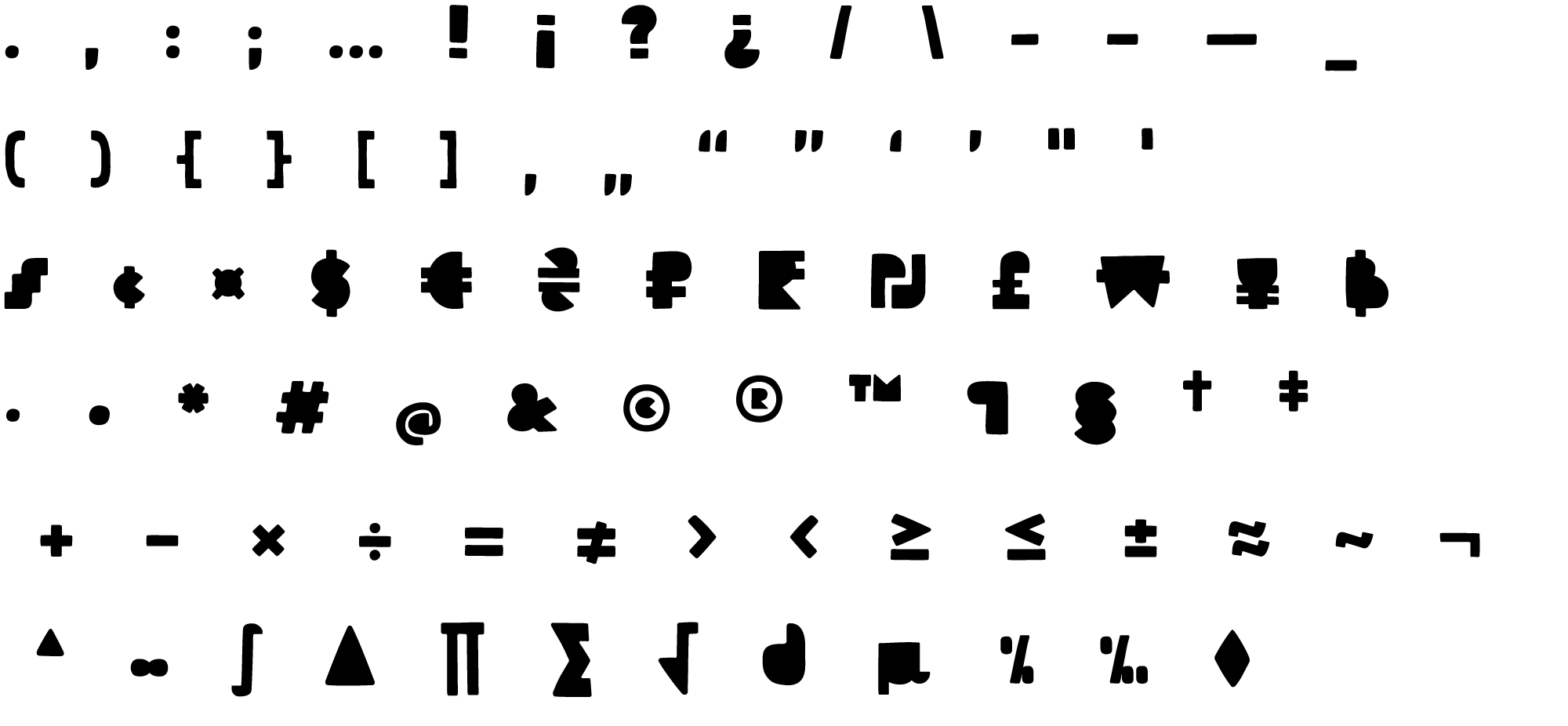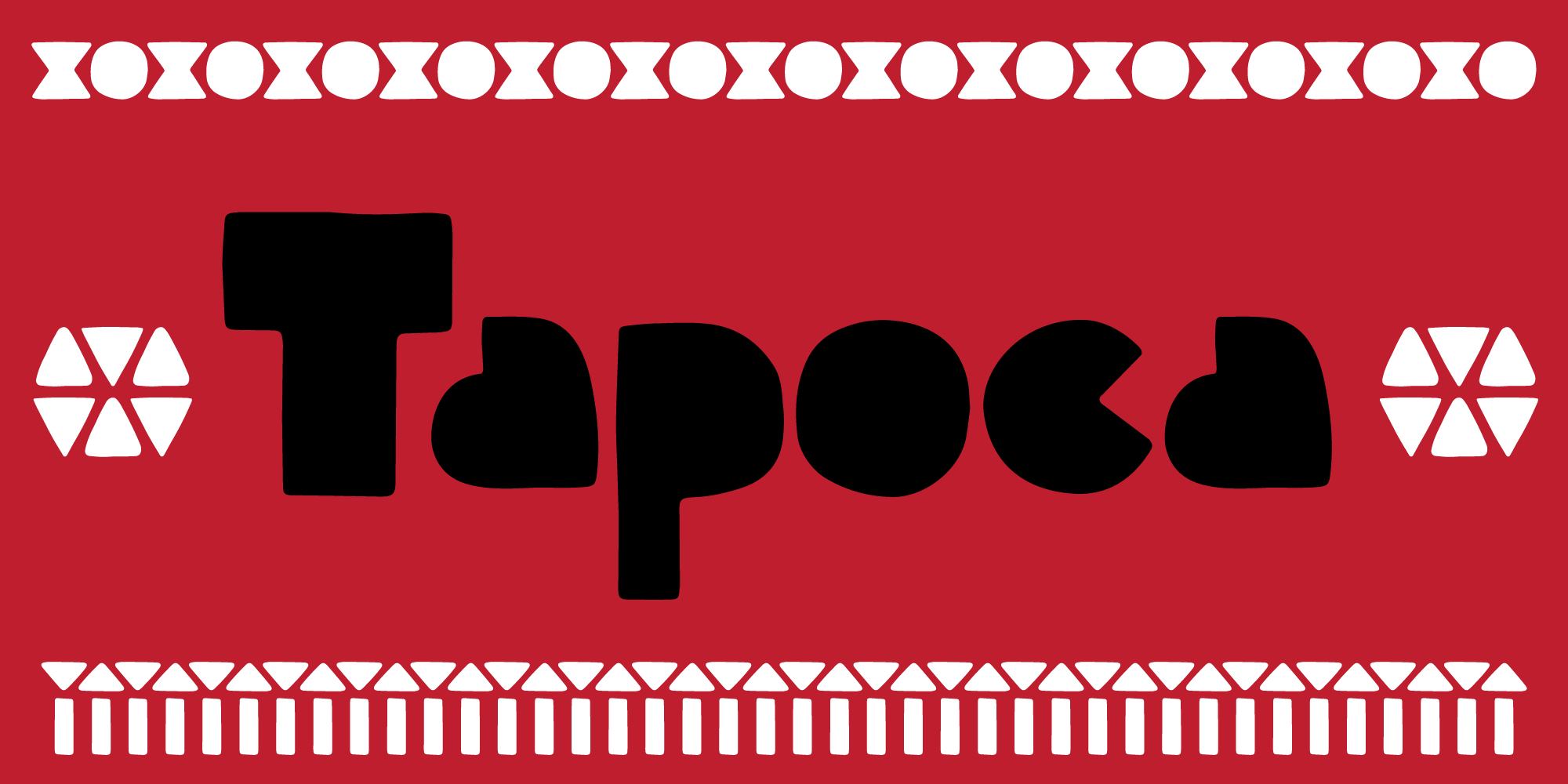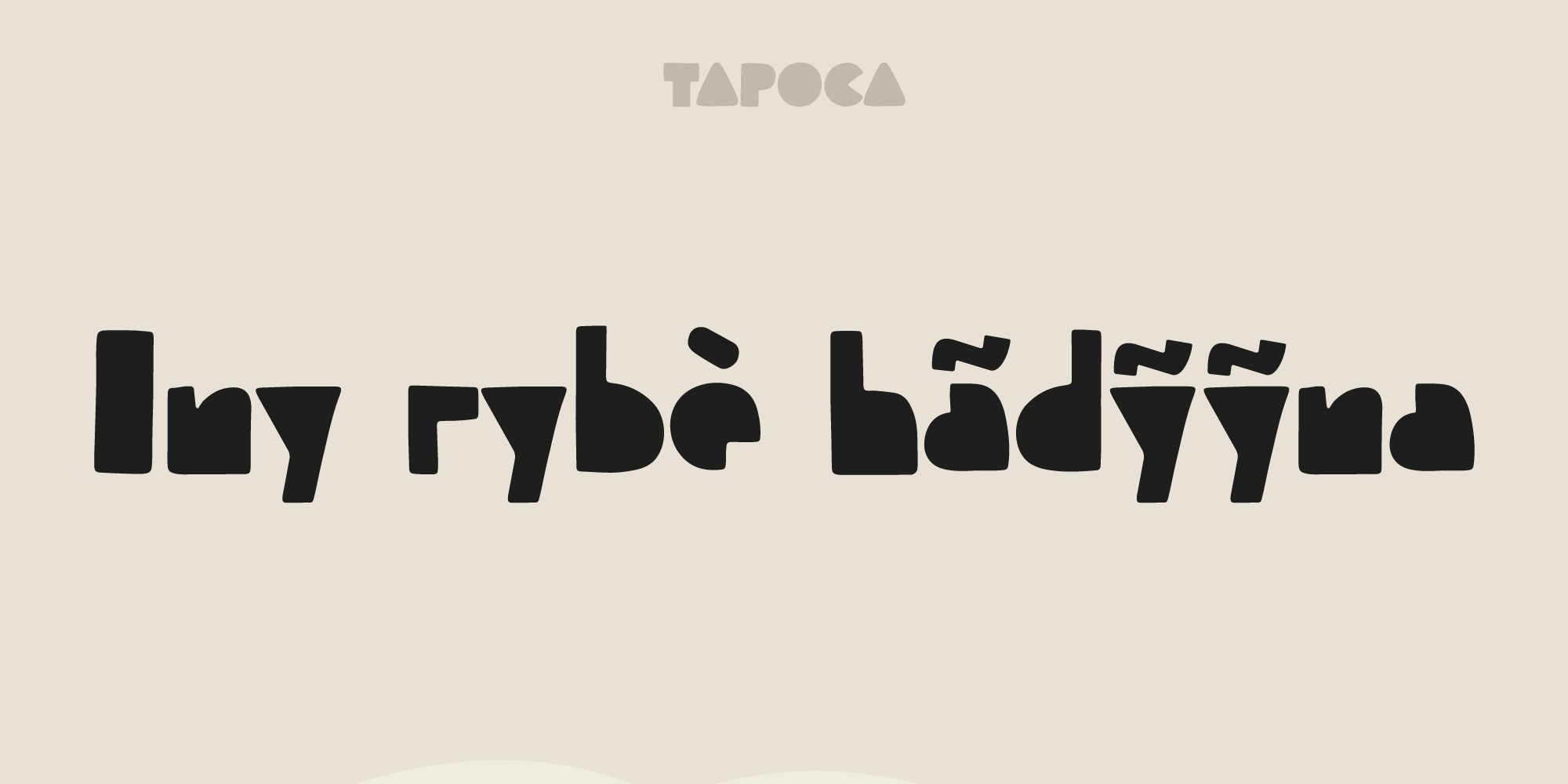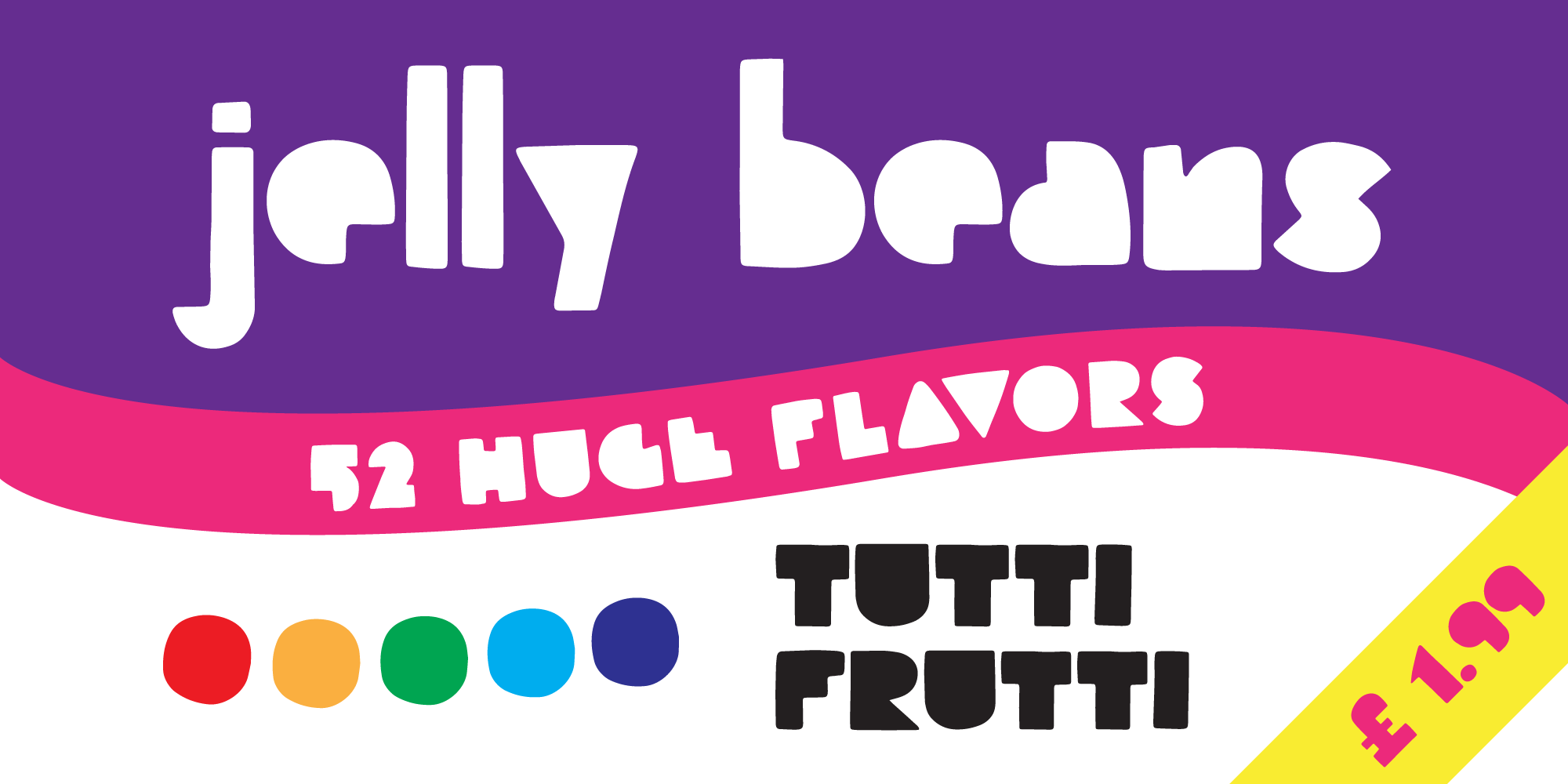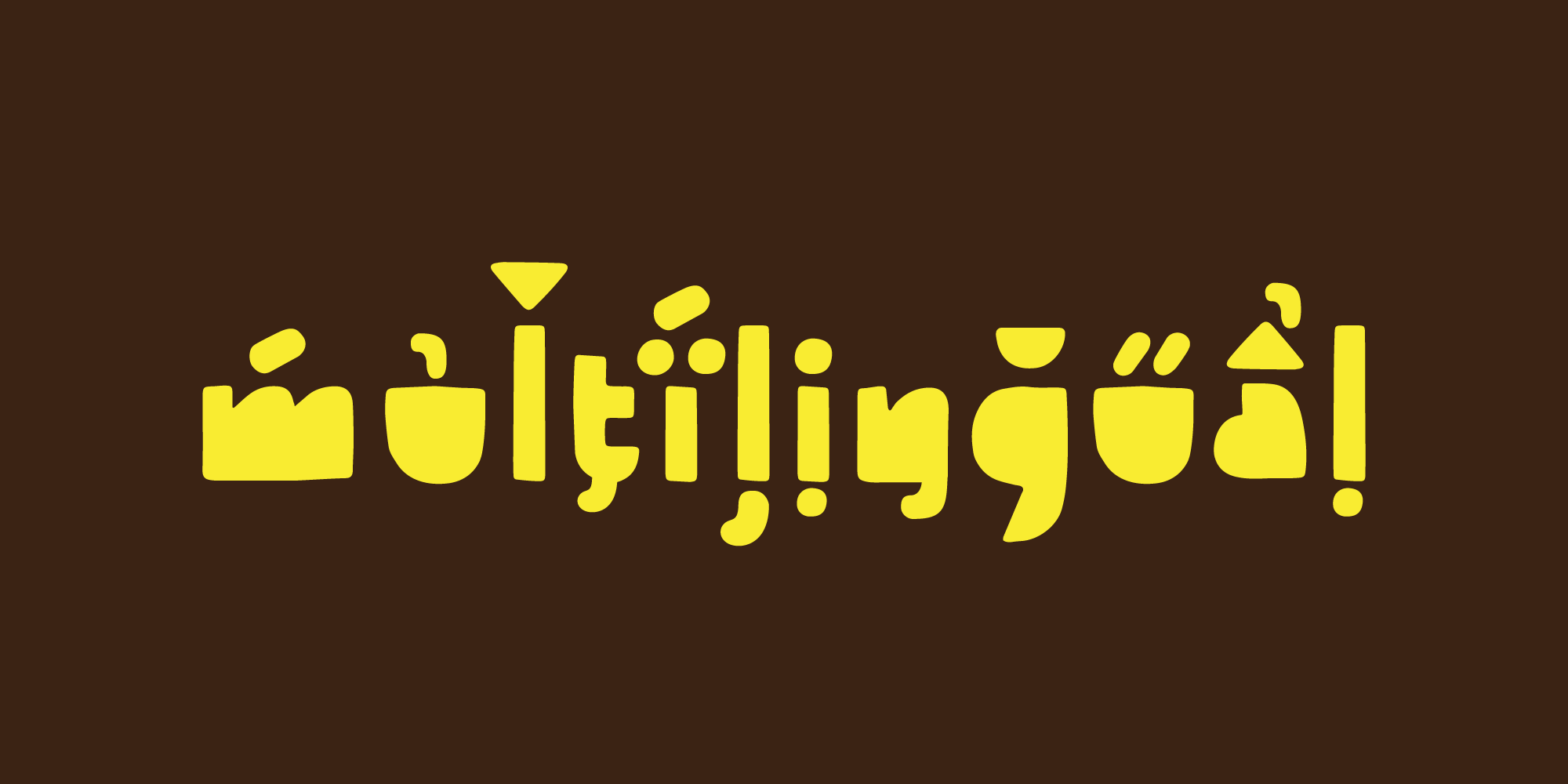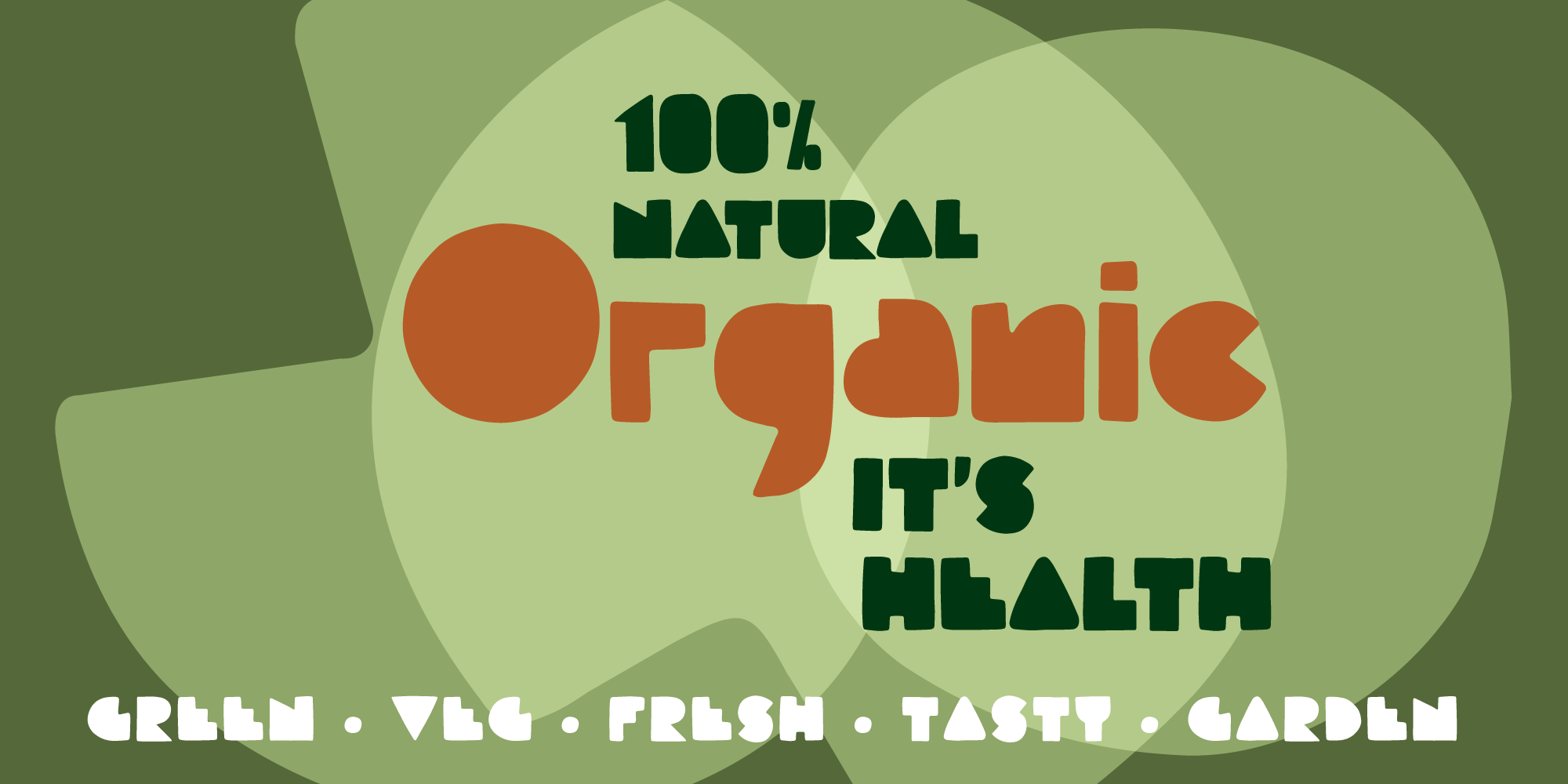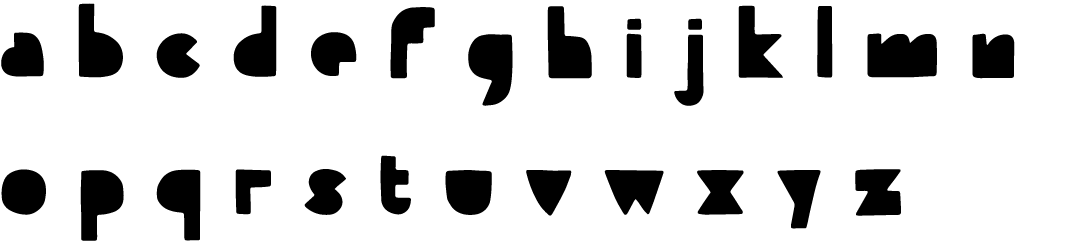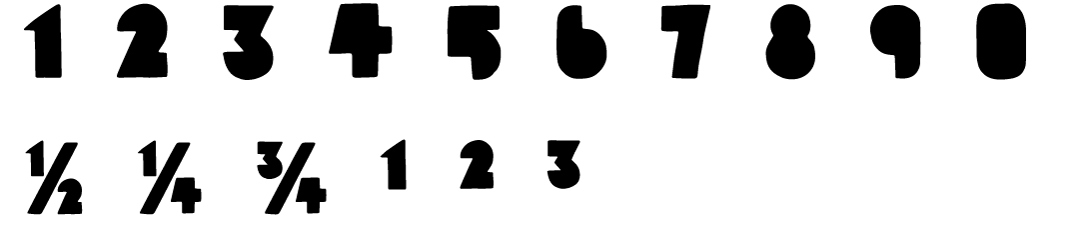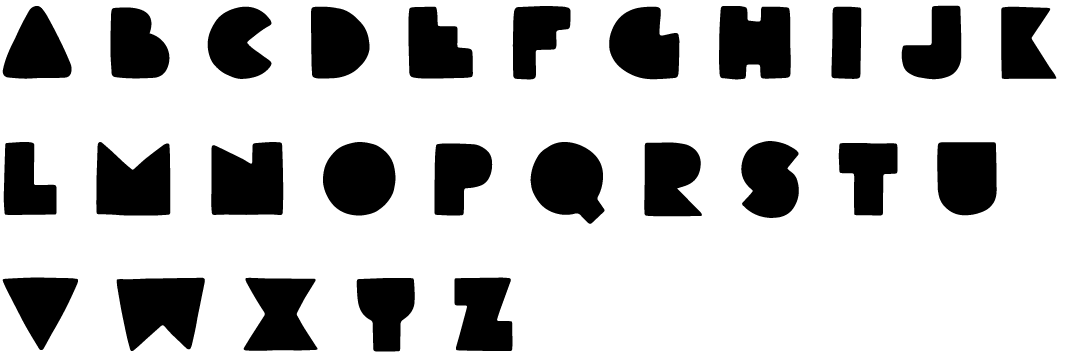
Tapoca is an organic display typeface shaped by the idea of matter transformed into form.
Its name draws from the universe of cassava and tapioca — ancestral knowledge of the Indigenous peoples of Brazil — as a metaphor for surface: a mass that spreads, settles, and gains body. This logic guides the design of the glyphs, marked by full volumes, continuous curves, and a construction distant from rigid industrial patterns.
Tapoca emerges from the intersection of Indigenous graphic traditions, Afro-diasporic visual heritage, and a typographic process attentive to gesture, rhythm, and presence. The letters are dense and expressive, designed to occupy space with personality in headlines, visual identities, and strong typographic hierarchies.
Within the display field, Tapoca is broad and versatile. It works equally well in bold headlines and visual identity systems, adapting to different contexts without losing its character. Its strength lies precisely in this expressive flexibility: a typeface that adapts to the project without becoming generic.
TAPOCA
FORM • GESTURE • PRESENCE
Tapoca is a display typeface designed to occupy space with confidence. While it excels in headlines, its structure also supports short blocks of text, maintaining rhythm, density, and presence without sacrificing clarity.
Beyond its formal qualities, Tapoca was developed with special attention to linguistic diversity. Its character set is extensive and prepared for the transcription of Indigenous languages of Brazil, reaffirming typography as a cultural tool rather than merely a technical one.
- Latin Basic
- Latin Extended
- Advanced diacritic support
- Prepared for Indigenous languages of Brazil